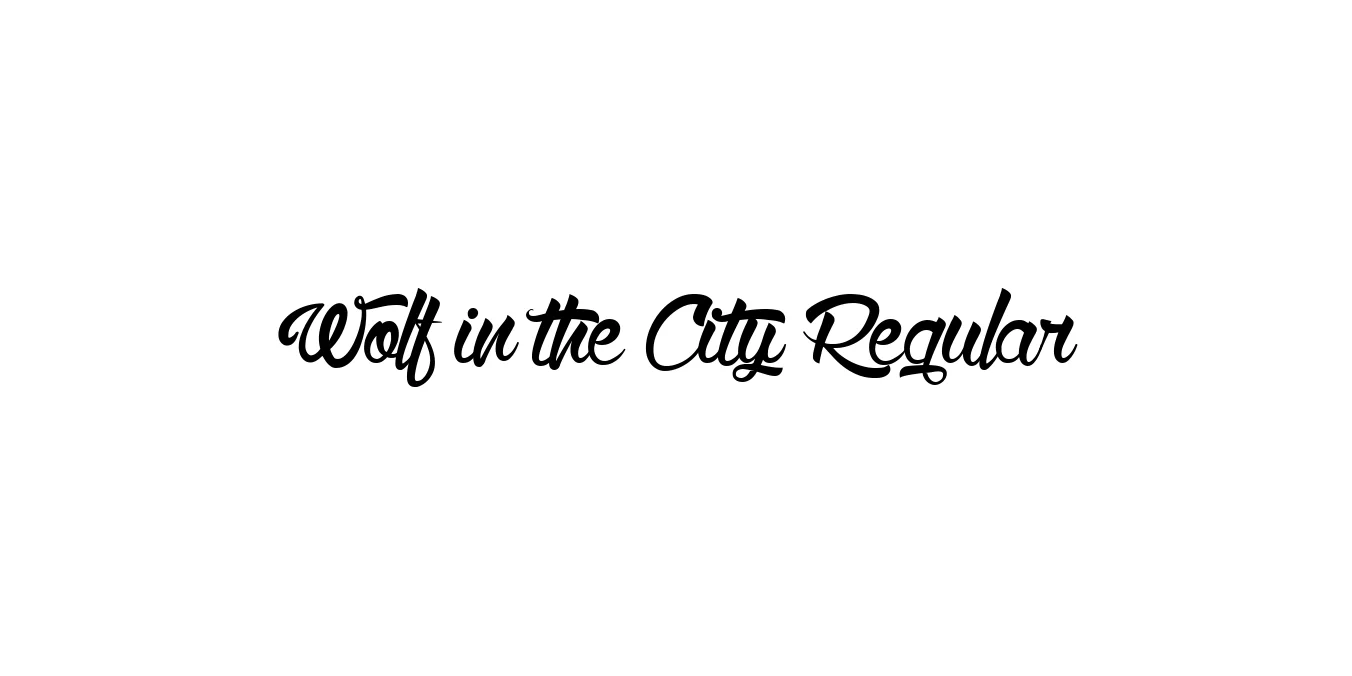
Wolf in the City Regular
Designed by Maelle.K
Wolf in the City Regular is a popular handwritten script font that captures the essence of fluid, expressive penmanship. Designed by Maelle.K, this typeface stands out for its elegant yet slightly gritty aesthetic, which balances sophistication with an urban, street-style edge. Its flowing ligatures and natural variations make it an excellent choice for designers seeking an organic, hand-crafted feel for their digital and print projects.
Since its introduction, Wolf in the City has become a go-to resource for creative layouts, ranging from high-end fashion branding to personal stationery. The font's rhythmic quality and distinctive character shapes provide a unique visual identity, ensuring that any text remains legible while conveying a strong sense of personality and artistic flair.
Wolf in the City Regular Best Uses
Perfect for creating memorable logos with a personal, hand-lettered touch.
Ideal for elegant invitations, RSVP cards, and romantic event signage.
Excellent for t-shirt designs and streetwear brand labels.
Great for stylized quotes and eye-catching Instagram story overlays.